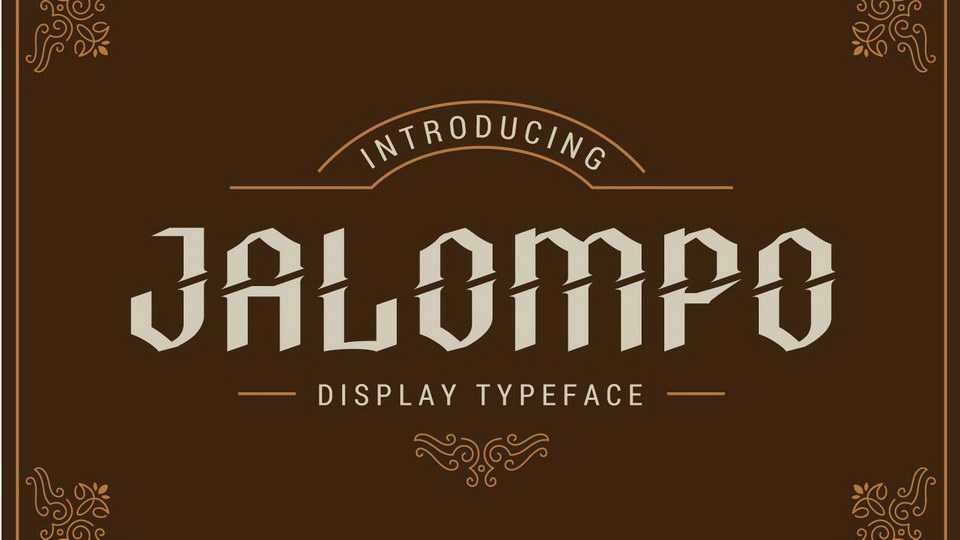
Download Jalompo font, a display typeface with high shaped characters to support your brand/project. Jalompo can be used for posters, magazine, book cover, etc.